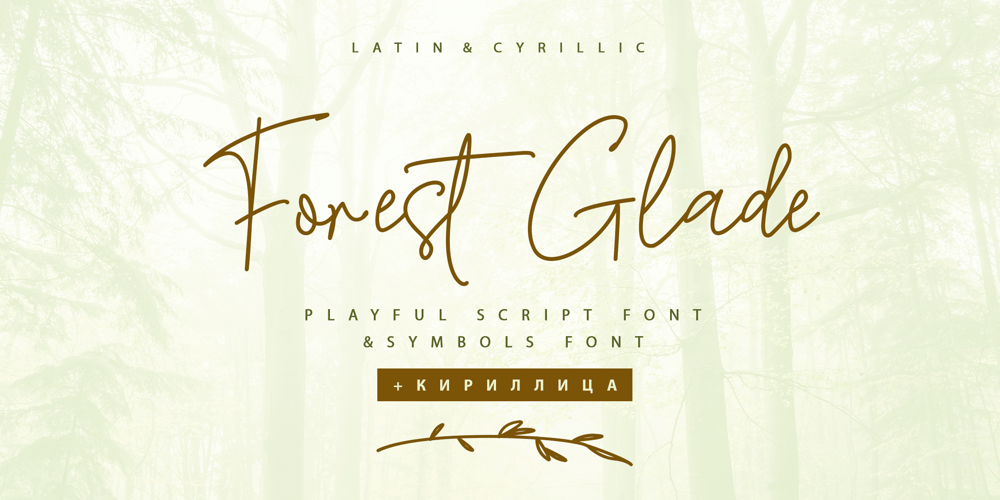
Forest Glade Cyrillic Font Family was designed by Iryna Dviliuk and published by Ira Dvilyuk. Forest Glade Cyrillic contains 2 styles and family package options. Forest Glade playful Cyrillic script font with the dancing baseline is perfect for use in all your design projects be it logos, signatures, labels, packaging design, blog headlines. Also, it will look great in mugs, cards, gorgeous typographic designs, wedding stationery, and much more.Forest Glade playful Cyrillic sctipt font includes a full set of gorgeous uppercase 2 sets of lowercase letters, numerals, a large range of punctuation and 27 ligatures, giving realistic hand-lettered style.Forest Glade Symbols is a font with 26 unique, hand-drawn illustrations and elements that can help to make your design more original. A different symbol is assigned to every uppercase and lowercase a standard character so you do not need graphics software just simply type the letter you need.Multilingual Support for 27 languages: Afrikaans, Albanian, Basque, Bosnian, Catalan, Danish, Dutch, English, Estonian, Faroese, Filipino, Finnish, French, Galician, Indonesian, Irish, Italian, Malay, Norwegian Bokmål, Portuguese, Slovenian, Spanish, Swahili, Swedish, Turkish, Welsh, ZuluAnd Cyrillic glyphs support for Russian, Belorussian, Bulgarian, and Ukrainian languages.